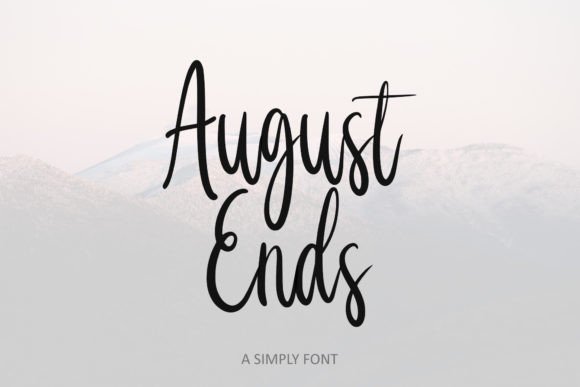
August Ends Font: A Versatile Typeface for Late Summer Elegance
As the warmth of summer begins to wane, the month of August brings with it a sense of calm and transition. It’s a time when the vibrant hues of summer start to soften, and the air takes on a gentle, anticipatory quality. For designers and creatives, this shift in seasons presents an opportunity to infuse their projects with a sense of sophistication and elegance. Introducing the “August Ends” font, a versatile typeface that perfectly captures the essence of late summer.
What is August Ends Font?
“August Ends” is a thoughtfully crafted typeface that combines simplicity with elegance. This font is not just a single style, but a duo of complementary fonts designed to offer flexibility and creativity. It includes both a clean, straightforward style and a fluid, script option, making it incredibly versatile for a wide range of applications.
Clean and Elegant Styles
The clean style of “August Ends” is characterized by its crisp lines, clear letterforms, and a modern aesthetic. This style is perfect for projects that require a professional and polished look, such as business branding, official invitations, and editorial content. The clean style ensures that your message is conveyed with clarity and sophistication, making it an excellent choice for headings, titles, and short texts.
On the other hand, the script option offers a more fluid and dynamic feel. With its flowing connections and elegant curves, this style adds a touch of warmth and personality to any project. It’s ideal for creating a more personal and inviting atmosphere, making it suitable for personal invitations, event branding, and creative storytelling.
Perfect for a Wide Range of Projects
The versatility of “August Ends” makes it suitable for a variety of applications. Here are some of the ways you can use this beautifully crafted font:
- Personal Invitations: Whether you’re planning a wedding, birthday party, or any other special occasion, “August Ends” can add a touch of elegance and sophistication to your invitations.
- Professional Branding: For businesses looking to refresh their brand identity, this font offers a modern yet timeless look that can be used for logos, marketing materials, and website content.
- Editorial Content: Bloggers, writers, and publishers can use “August Ends” to give their articles, blog posts, and books a professional and contemporary feel.
- Event Branding: For conferences, workshops, and seminars, this font can be used to create eye-catching posters, flyers, and digital promotions.
Benefits of Using August Ends Font
There are several benefits to using “August Ends” in your projects:
- Unique and Memorable: The combination of clean and script styles ensures that your project stands out and remains memorable.
- Versatile: With two styles to choose from, you can adapt “August Ends” to suit any project or brand identity.
- Elegant and Sophisticated: The font’s design exudes a sense of elegance and sophistication, making it perfect for projects that require a professional look.
- Easy to Read: The clean style of “August Ends” ensures that your text is easy to read, even at smaller sizes.
Tips for Using August Ends Font
To get the most out of “August Ends,” consider the following tips:
- Mix and Match: Combine the clean and script styles to create visual interest and hierarchy in your designs.
- Pay Attention to Spacing: Make sure to adjust the spacing between letters and lines to ensure optimal readability and aesthetics.
- Use for Headings and Body Text: The clean style is great for body text, while the script option can be used for headings and titles to add a touch of elegance.
“August Ends” is a versatile and beautifully crafted font that captures the essence of late summer. With its combination of simplicity and elegance, this typeface is perfect for adding a touch of sophistication to your projects. Whether you’re working on personal invitations, professional branding, or editorial content, “August Ends” offers the flexibility and style you need to create something truly special. Embrace the calm and transitional feel of August with this exceptional font, and elevate your designs to new heights of elegance and refinement.